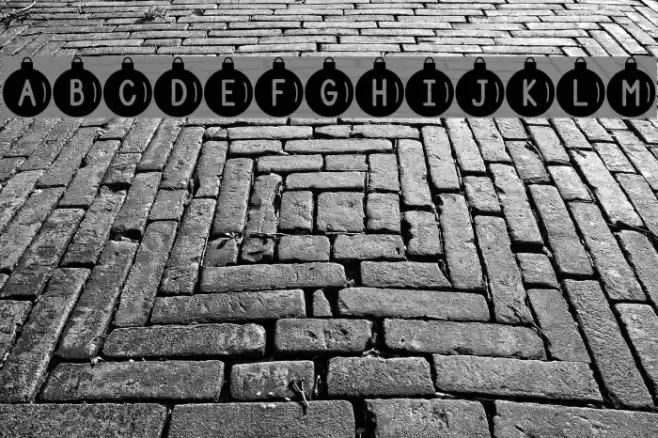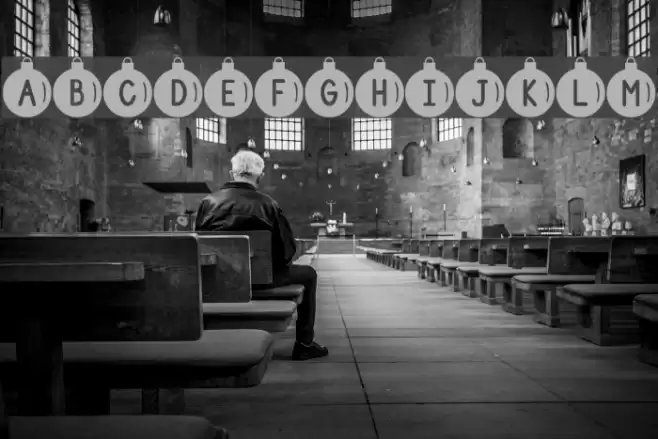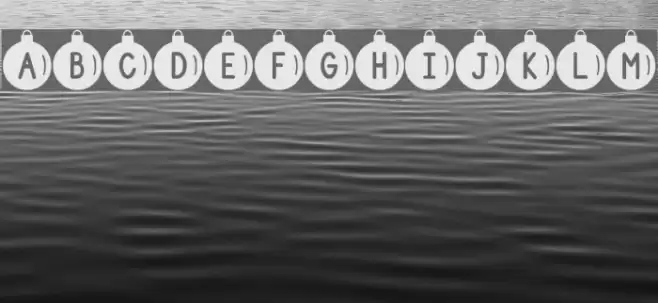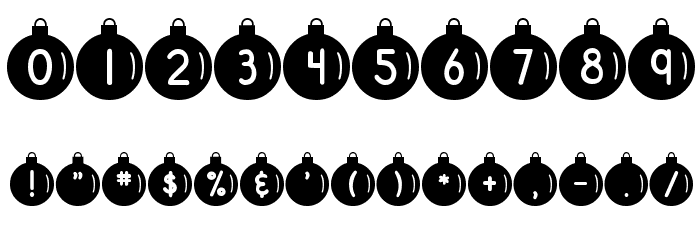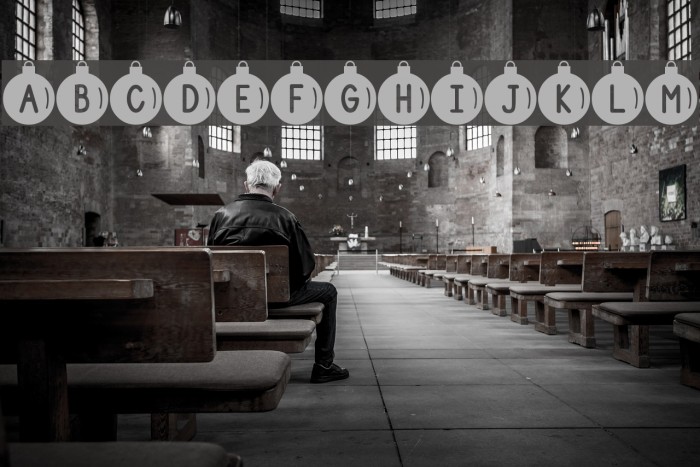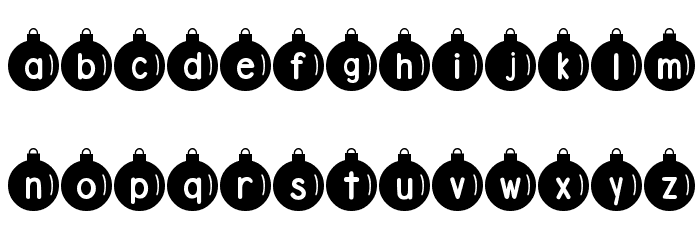
DJB Ornamental 2 Font
DJB Ornamental 2 Description
This decorative font features characters enclosed within circular ornaments, resembling Christmas baubles. Each letter and number is centered within a black circle, creating a festive and playful appearance. The uppercase and lowercase letters maintain a consistent style, with clean lines and a modern sans-serif look. The numbers and special characters follow the same design, ensuring uniformity across all elements. This font is ideal for holiday-themed projects, adding a whimsical touch to any design. Its unique style makes it stand out, perfect for capturing attention in creative displays.
A decorative font with characters inside circular ornaments, ideal for festive designs from Uncategorized fonts.
- Proposed Projects: Holiday cards, festive banners, seasonal advertisements, decorative posters.